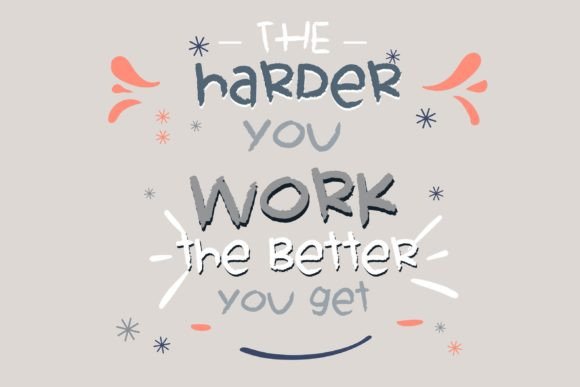
Crayon Hand is a textured, handwritten font that has the look and feel of crayon on textured paper. No matter the topic, this font will be an incredible asset to your fonts’ library, as it has the potential to elevate any creation.
Crayon Hand Font